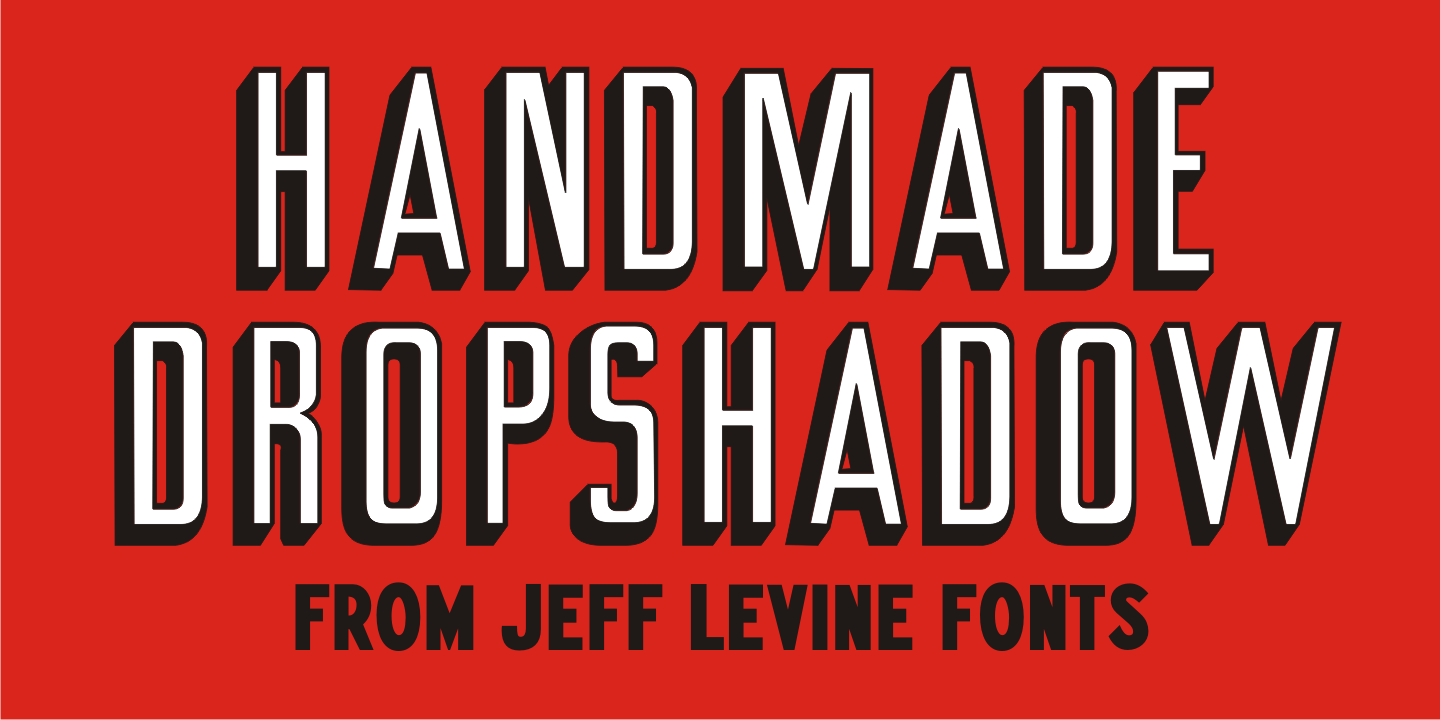
Handmade Dropshadow
Handmade Dropshadow JNL was modeled from lettering found on a vintage silk screened metal sign used for point-of-sale marketing. Before the advent of computers and modern techniques, silk screens were hand cut using material called frisket and knife tools, and the lettering reflected the human inconsistencies of cutting these lettering into the template surface for transfer.